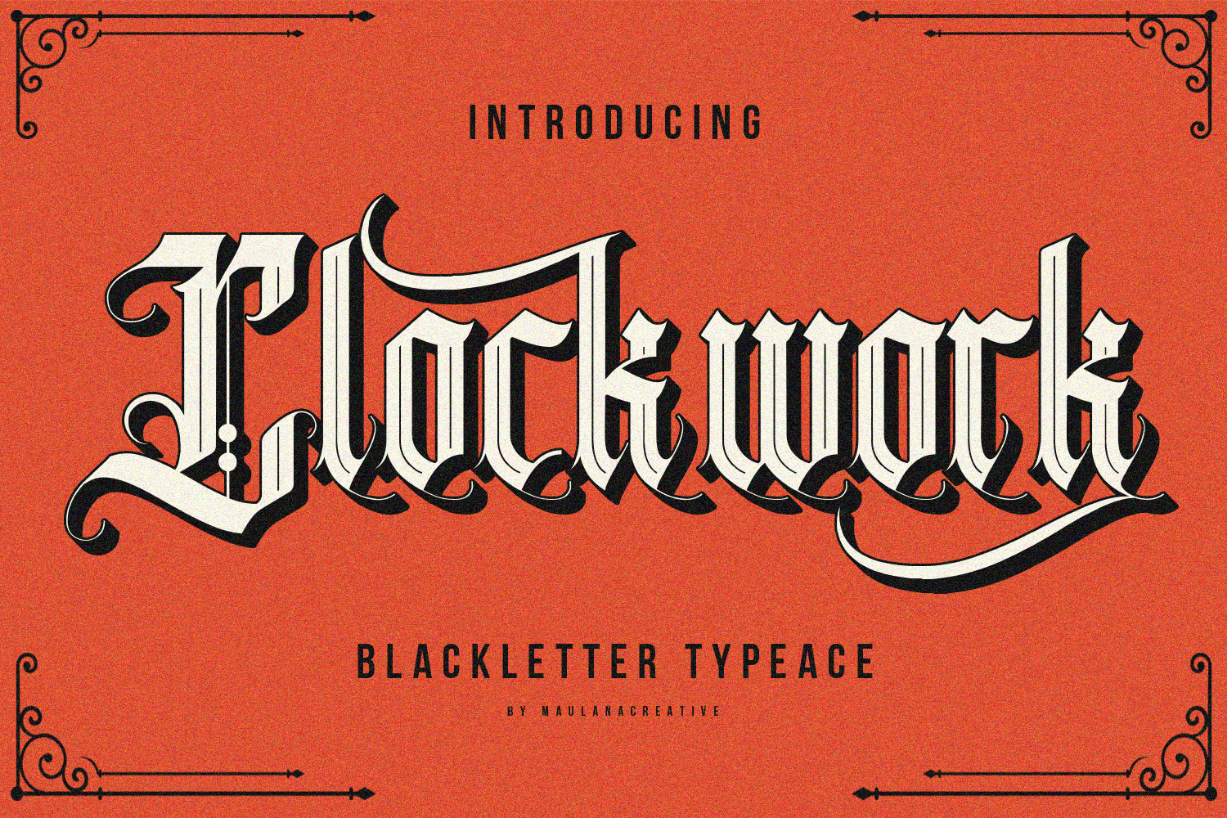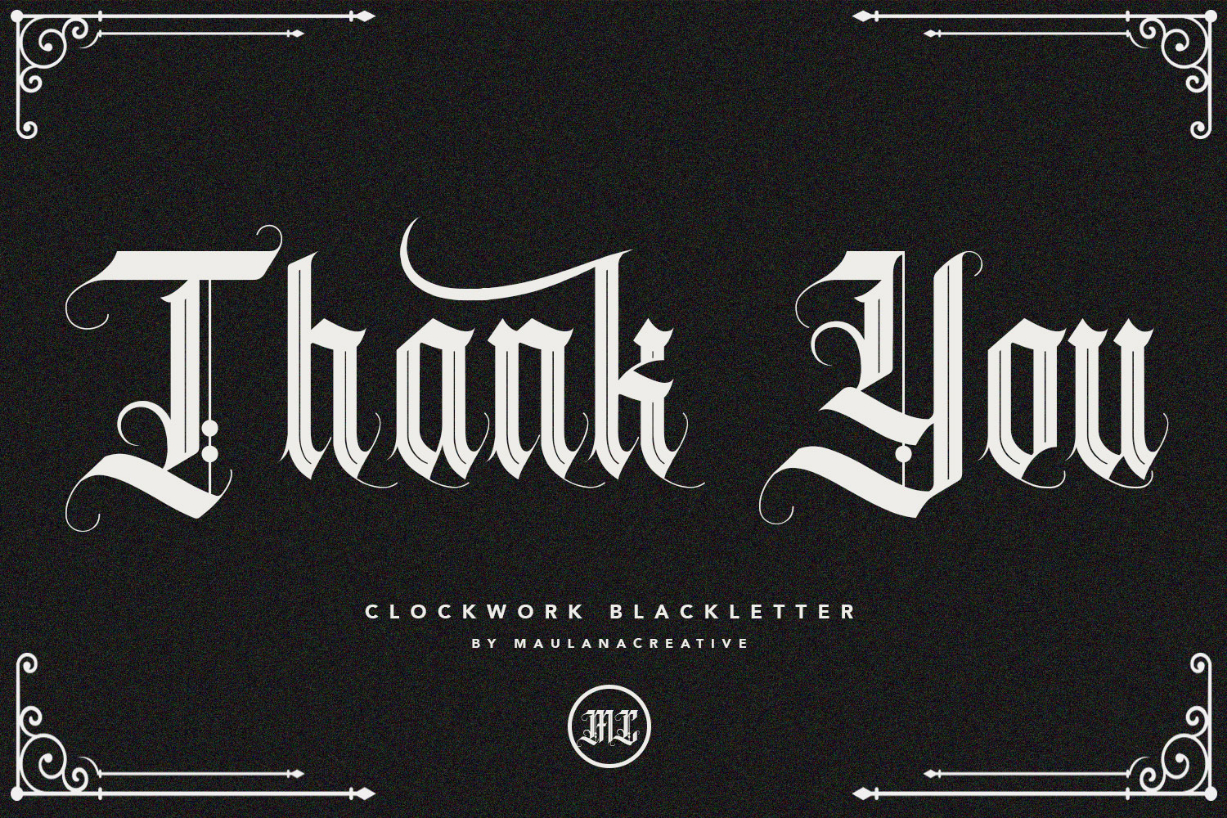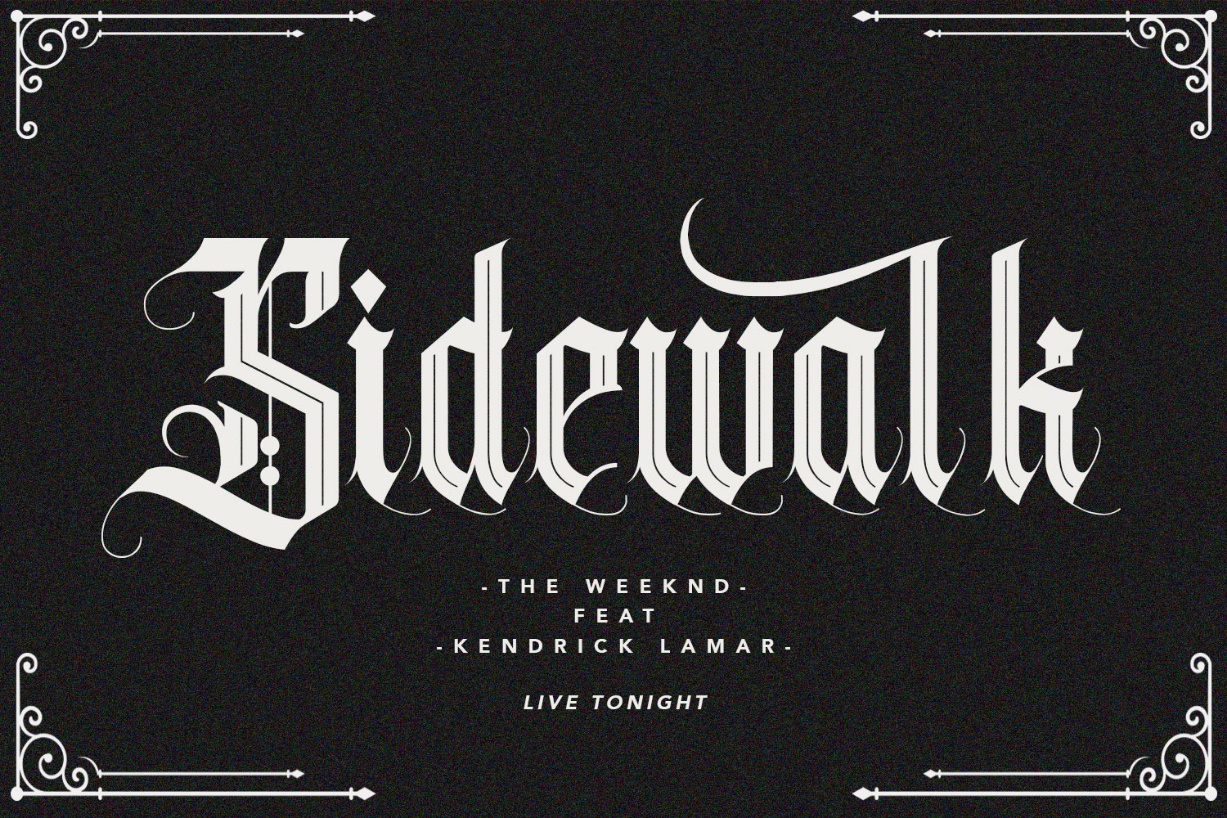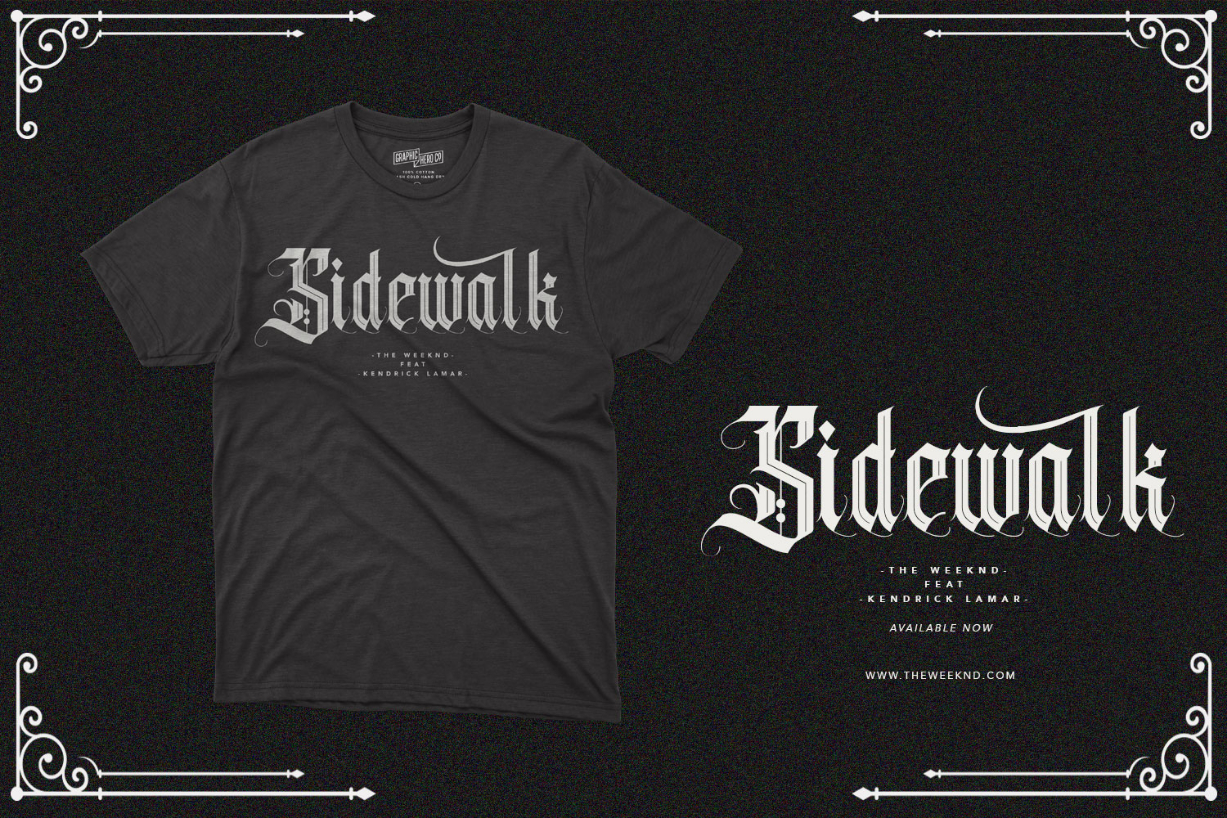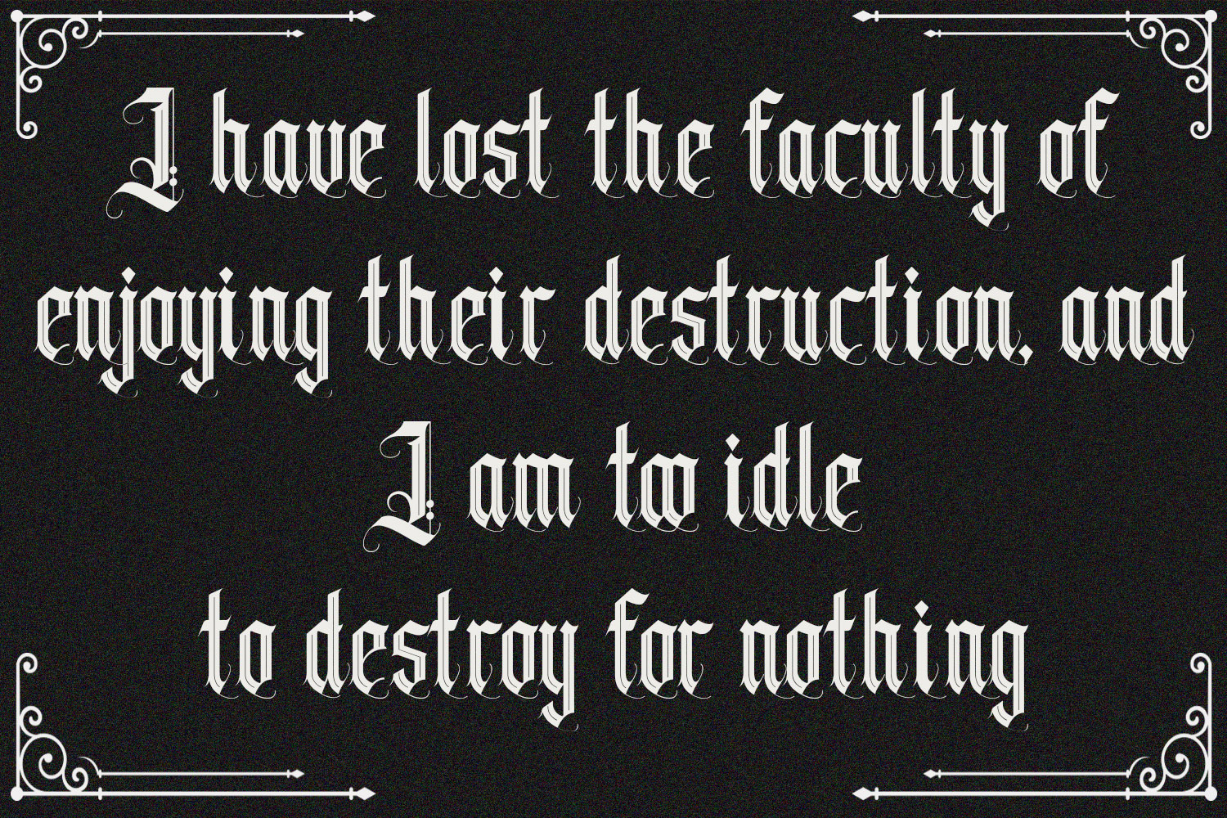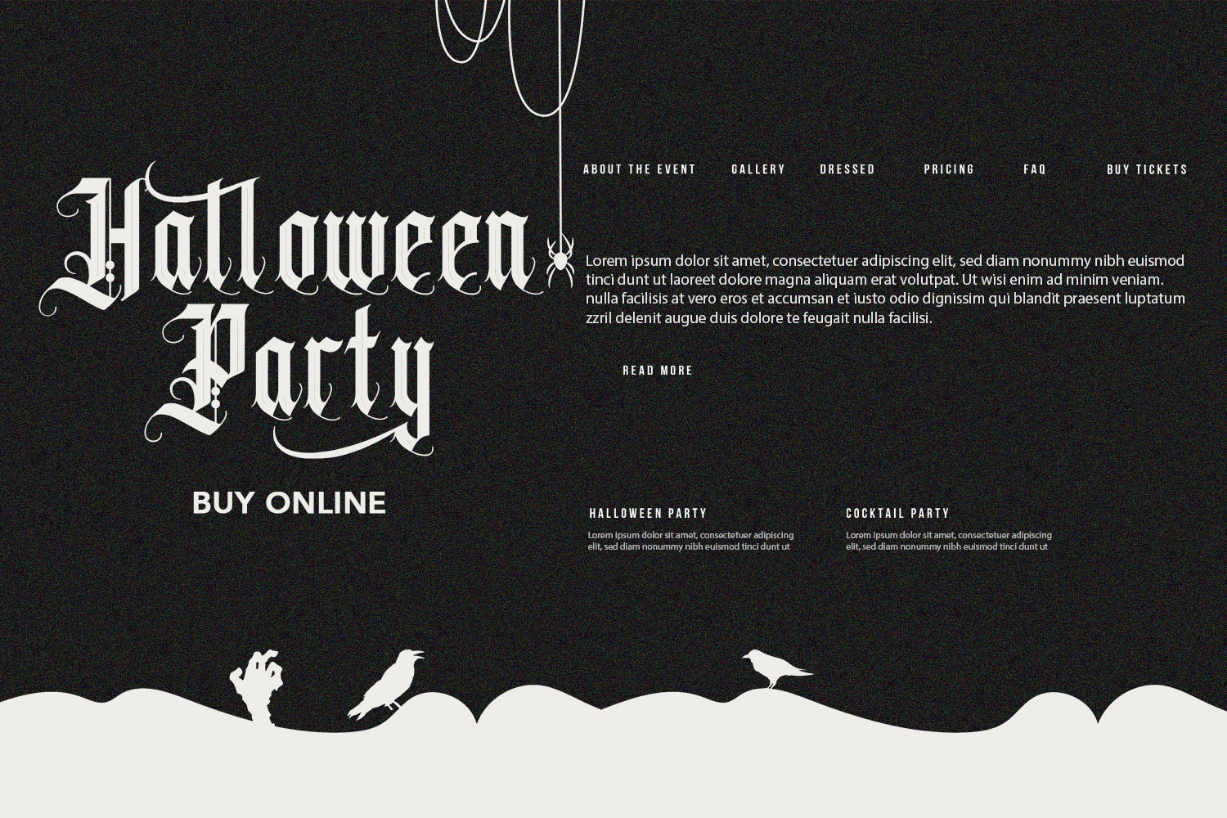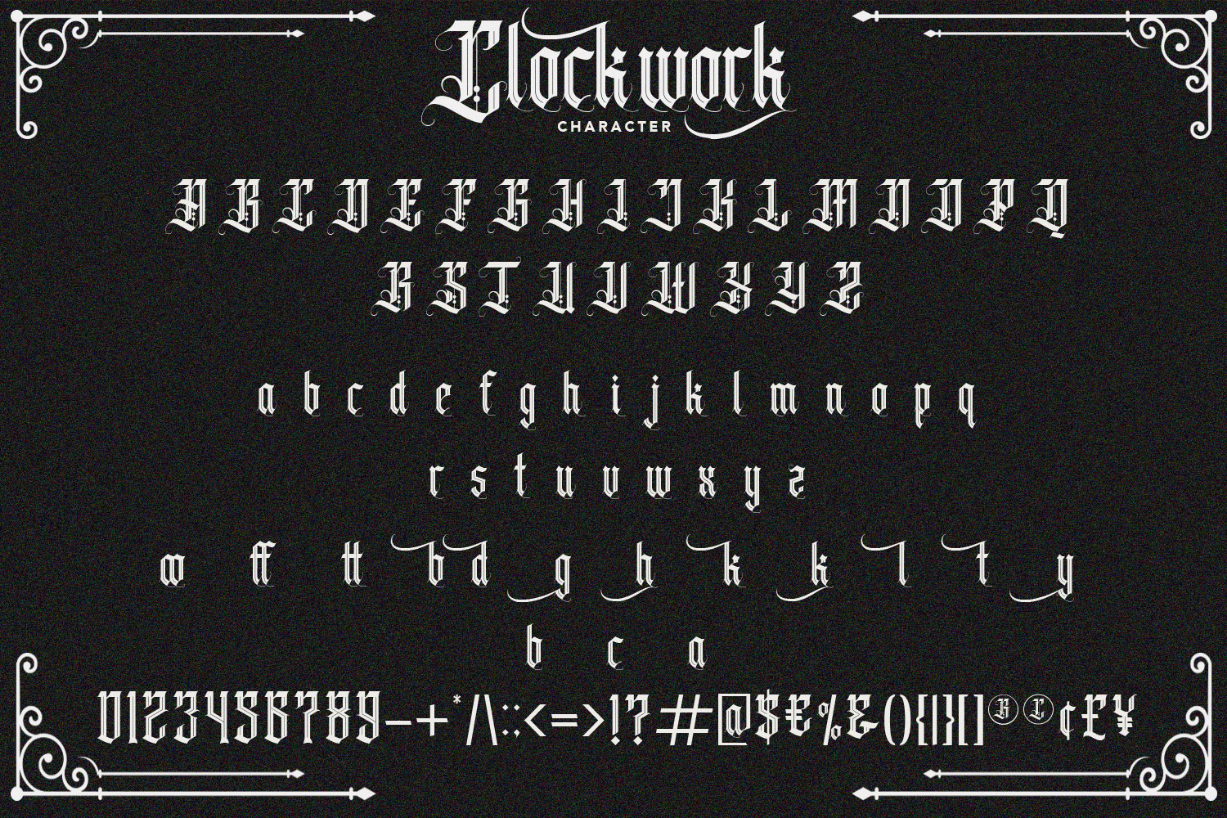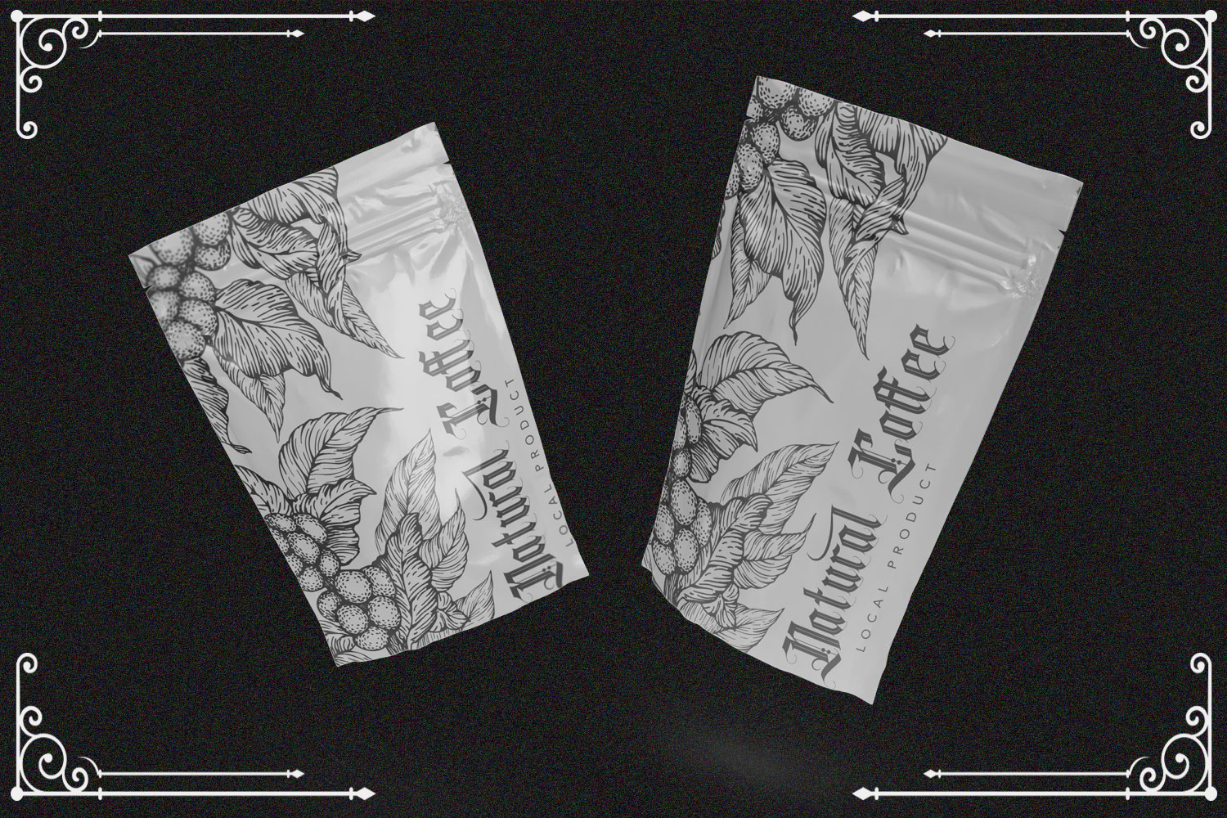
Clockwork Font
About Clockwork Font
Clockwork is a bold and authentic blackletter font. Add this font to your creative ideas and notice how it will make them stand out!